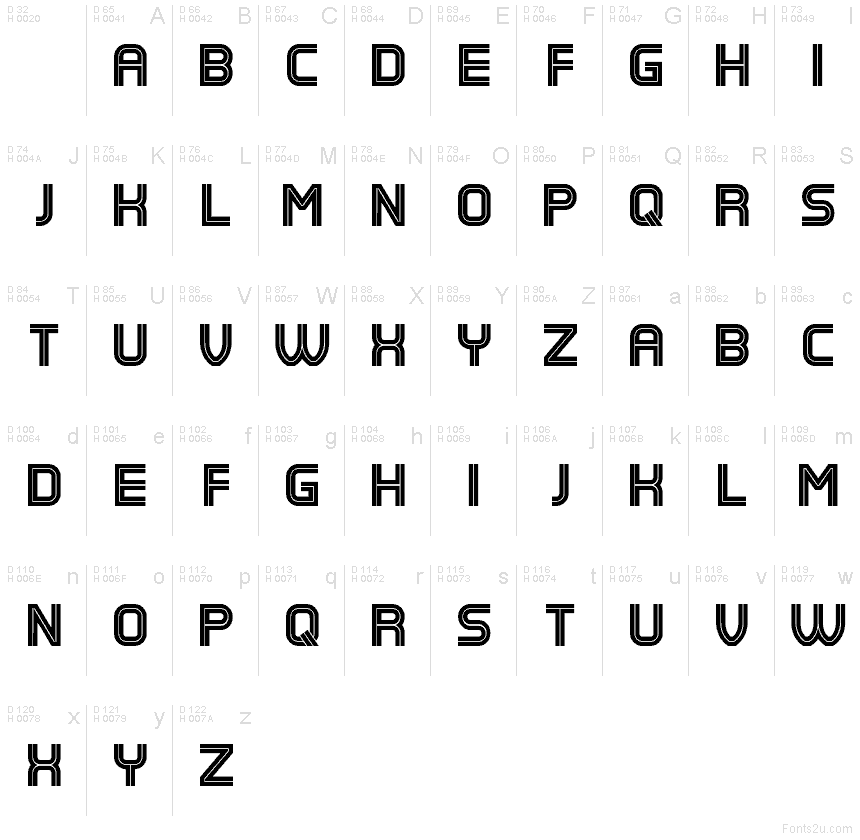
Catalog Bold font by Vladimir Nikolic is a free decorative display typeface. Part of the Catalog family, it draws its personality from parallel, tube-like strokes that form crisp, rounded shapes-like neon bent into tidy geometry. The double-line construction creates a built‑in outline effect that pops on dark or light backgrounds, giving headlines a bold, engineered rhythm without additional styling.
Using Catalog Bold, you get chunky forms with generous counters that stay readable even when you tighten tracking for impact. This free font shines on poster headlines, techno or sports branding, event flyers, packaging, game titles, and bold signage. Keep it large, then pair with a plain grotesque sans for body copy to let the outlined letters carry the spotlight.